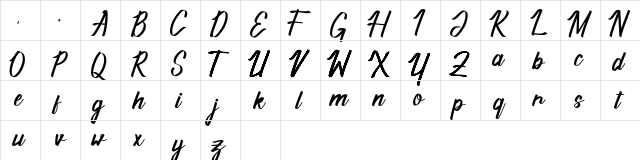
Valanda Script (Demo) Regular
Design Context for Valanda Script (Demo) Typeface
Valanda Script (Demo) brings a calligraphic fluidity to the page — its connecting strokes and expressive curves give it an unmistakably human quality.